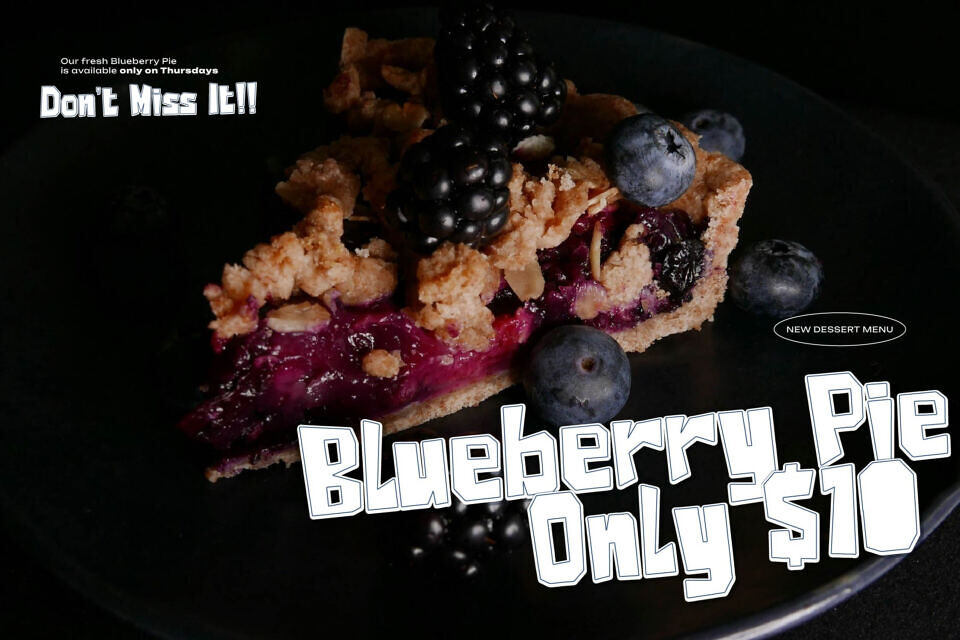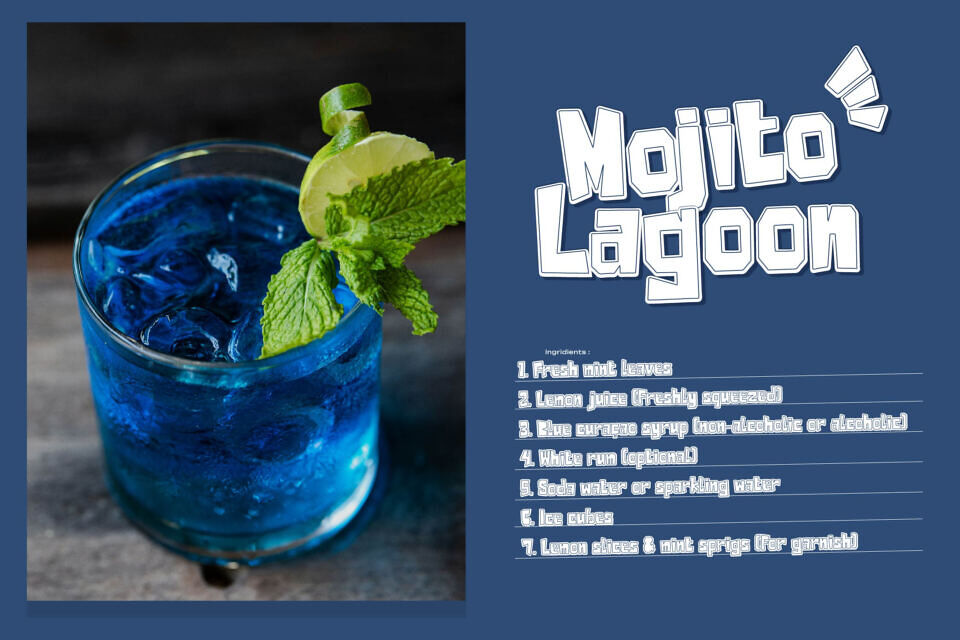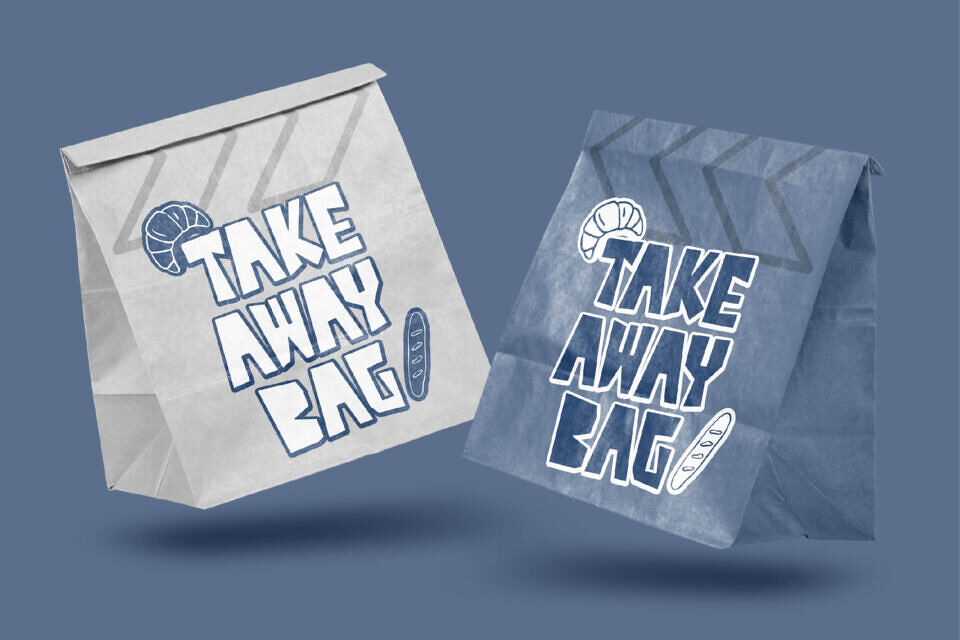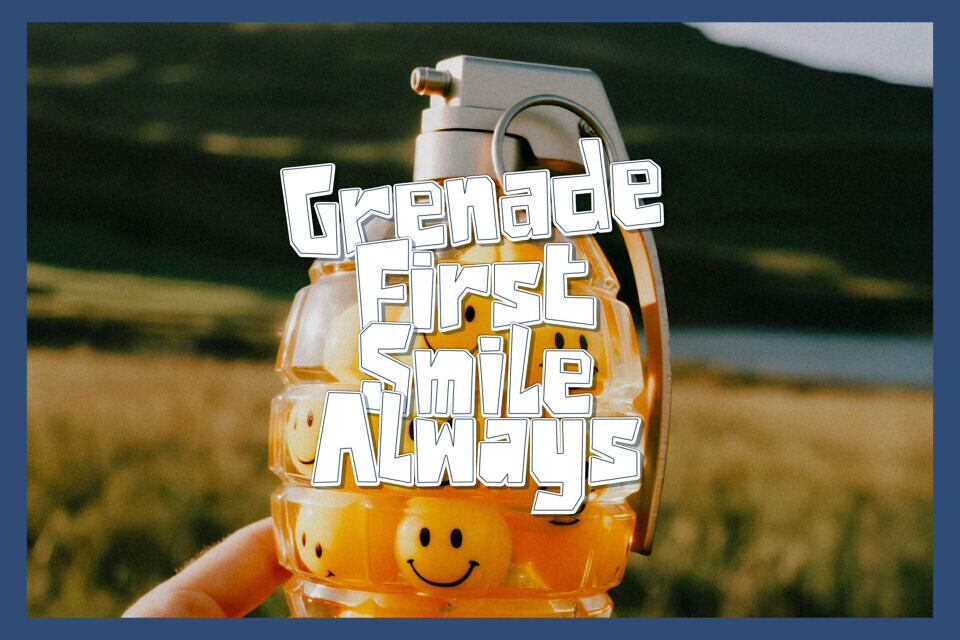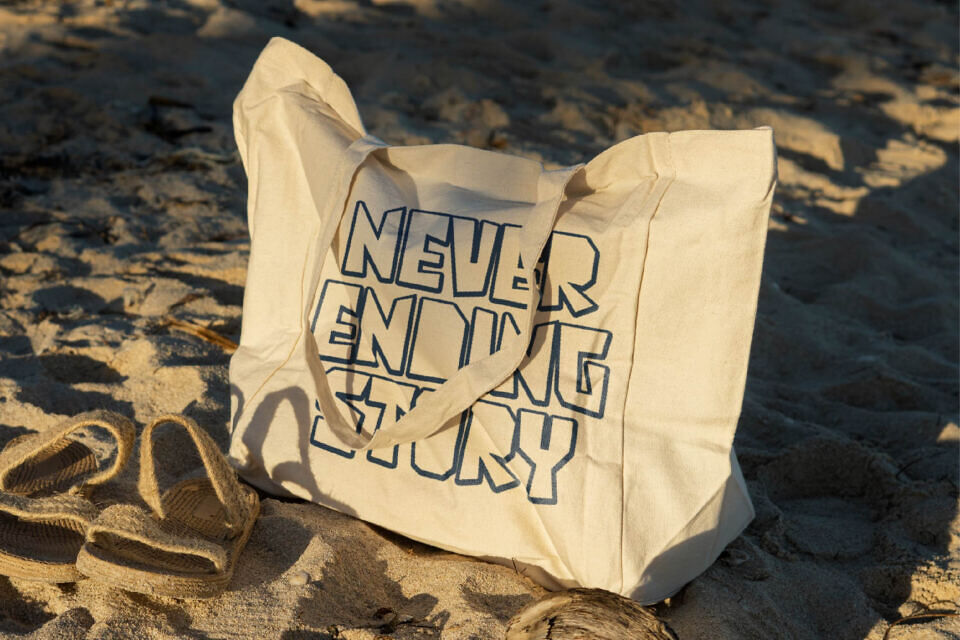
Blueming Sharing Font
Blueming Sharing is a cutout Handwritten from Gracetypestudio, suitable for any projects such as: logos, branding projects, homeware designs, product packaging, mugs, quotes, posters, shopping bags, t-shirts, book covers, name card, invitation cards, greeting cards, label, photography, watermark, special events, and all your other lovely projects that need a Cutout Handwritten taste.